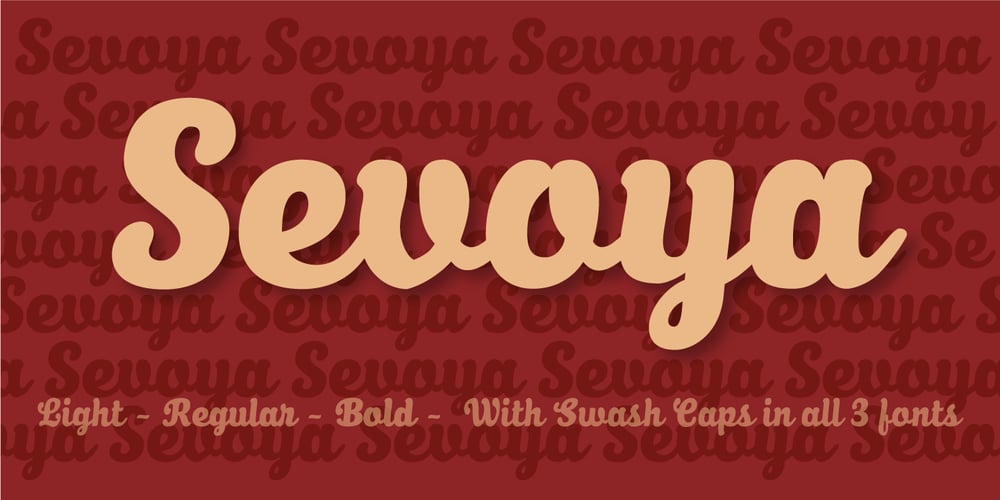
Sevoya Font Family was designed by John Nahmias and published by Jonahfonts. Sevoya contains 3 styles and family package options. Sevoya a captivating robust script font designed with fat strokes for those strong brands and logos. Featuring short ascenders and descenders making it a bit more legible.Sevoya is perfect to create outstanding headings, logos, menus, graphics, and many more applications.